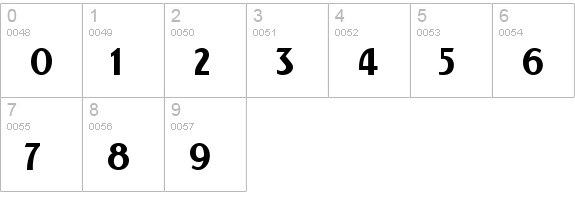
SaintLouisExtraBold Font Details
SaintLouisExtraBold is a stunning and powerful font that exudes confidence and strength. Its bold and thick letterforms make a bold statement, commanding attention and leaving a lasting impression. This font is perfect for headlines, titles, and any design project that requires a strong and impactful typographic element. With its clean and modern appearance, SaintLouisExtraBold adds a touch of sophistication to any design. Its sharp angles and defined lines give it a contemporary edge, making it a versatile choice for a wide range of creative projects. Whether used in print or digital media, this font will make your message stand out and captivate your audience. One of the best things about SaintLouisExtraBold is that it is freely available to download at FontsMarket.com. This means that you can access this exceptional font without any restrictions or limitations. It allows you to explore your creativity and enhance your designs without incurring any additional costs. FontsMarket.com provides a platform where you can easily and conveniently access this font, making it accessible to anyone who wants to add a touch of boldness and elegance to their projects. Download SaintLouisExtraBold now, and let your designs make a powerful statement. Whether you are designing a logo, creating a poster, or working on a website, this font will elevate your work to new heights and leave a lasting impression on your audience. Don't miss out on the opportunity to use this exceptional font for free - visit FontsMarket.com and unleash the full potential of your creativity.